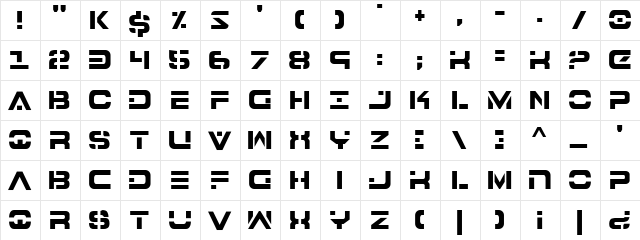
7th Service Semi-Condensed Semi-Condensed
Design Context for 7th Service Semi-Condensed Typeface
7th Service Semi-Condensed takes a measured approach to typography — its balanced proportions and neutral character make it a reliable workhorse for both digital and print work. Its narrow stance lets it pack a punch even in space-constrained designs.